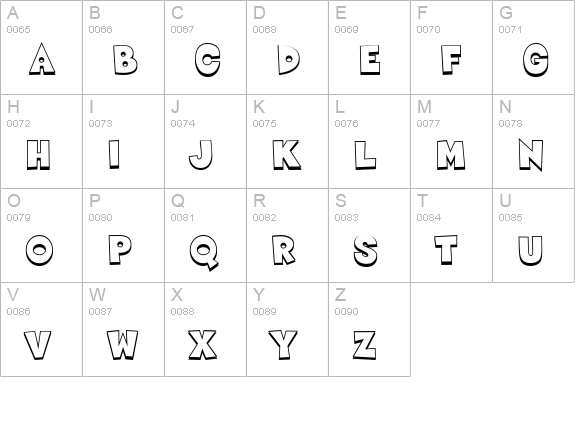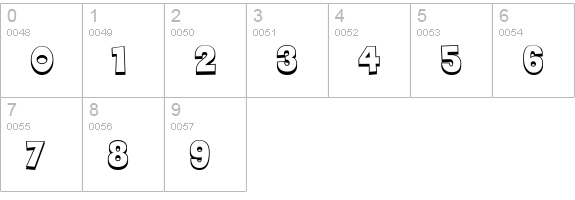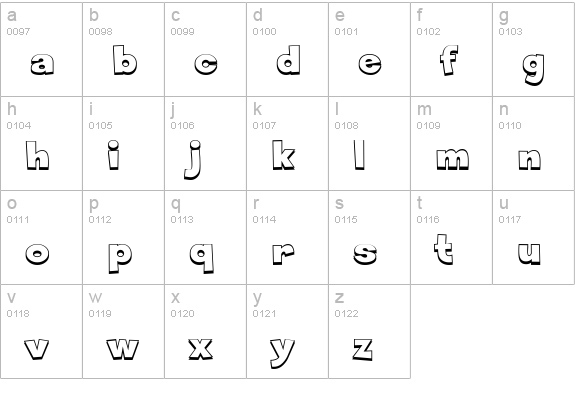
Sneakerhead BTN Shadow Font Details
Introducing Sneakerhead BTN Shadow, a font that encapsulates the energy and passion of sneaker culture. With its bold and pronounced shadow effect, this font captures the essence of the sneakerhead world - where style meets athleticism and individuality reigns supreme. Sneakerhead BTN Shadow is the perfect choice for any design project that seeks to convey a sense of urban flair and street-smart attitude. Its clean lines and distinct shadow effect make it stand out on any platform, whether it's a website, a poster, or even a clothing line logo. But what truly sets Sneakerhead BTN Shadow apart is that it is free. That's right, this incredible font is freely available to download at FontsMarket.com. We believe that creativity should not be hindered by financial constraints, which is why we have made this font accessible to all who seek to bring their designs to life. So whether you're a graphic designer looking to add an edgy touch to your project or a sneaker enthusiast wanting to create your own custom merchandise, Sneakerhead BTN Shadow is the font for you. Its bold and dynamic presence will make a statement wherever it's used, turning heads and capturing attention. Don't miss out on the opportunity to enhance your designs with this one-of-a-kind font. Download Sneakerhead BTN Shadow for free at FontsMarket.com and unleash your creativity without limitations. Step into the world of sneaker culture and leave a lasting impression with this visually striking font.